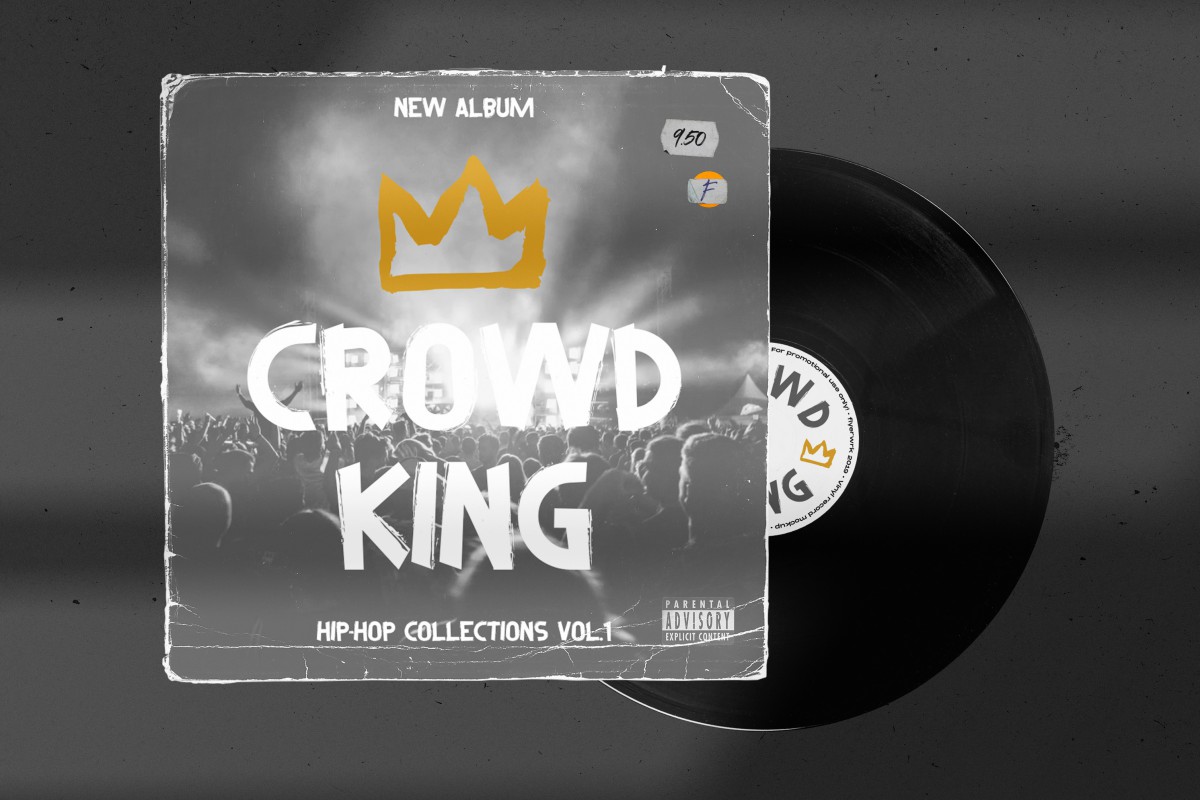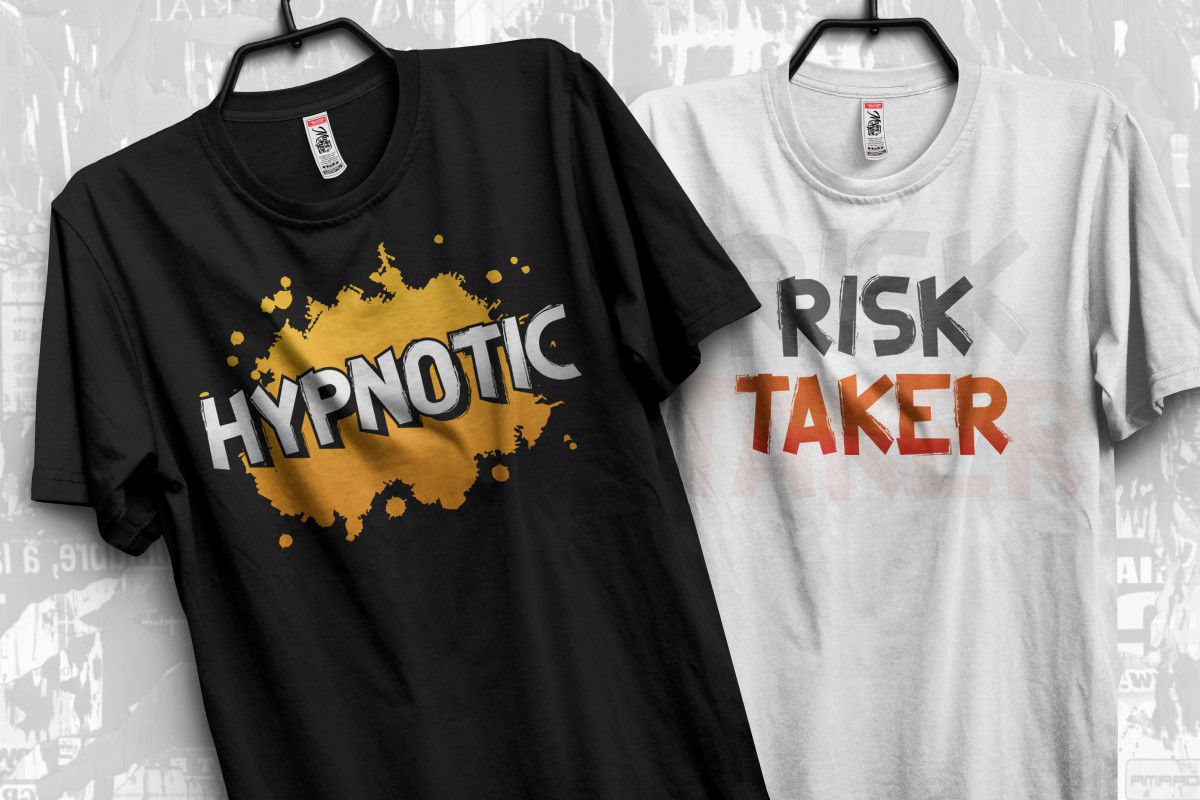
Baskara Brush Font
It’s an all caps display font with grunge style on the edges. This font is very suitable for poster, music cover, logo, flyers, labels or just used to express words above the background and many more. It brings strength and toughness to your perfect.